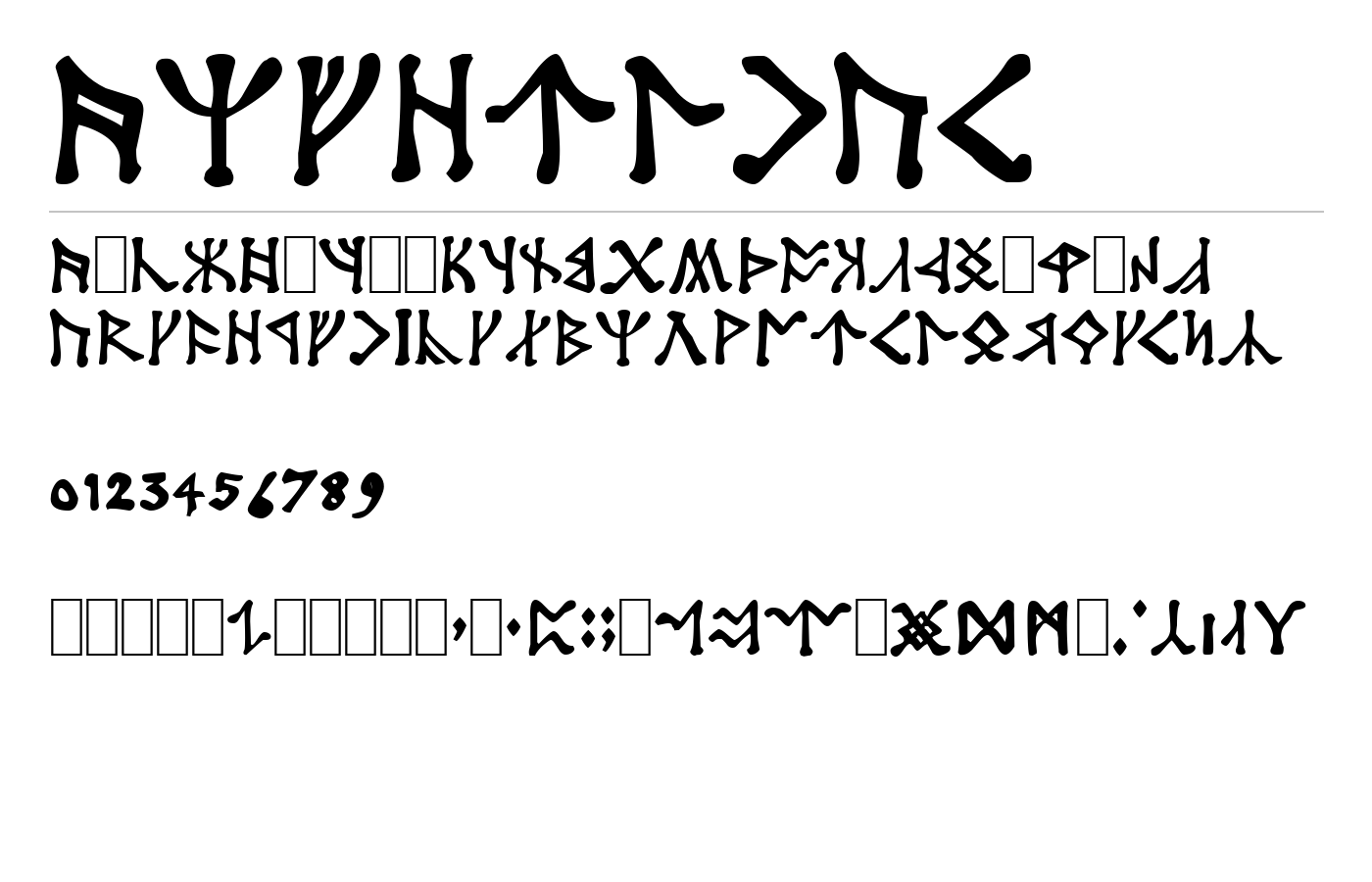
Angerthas Font is a unique, decorative typeface inspired by ancient runic scripts, featuring bold, narrow glyphs with a hand-carved, organic feel. Its irregular, sharp-edged strokes and distinctive shapes evoke a mystical, historical atmosphere, making it ideal for fantasy-themed designs, game titles, and creative projects seeking an archaic or mythical mood. This font stands out best in large sizes for headlines and logos where its intricate details can be fully appreciated.
Angerthas Font
About Angerthas Font